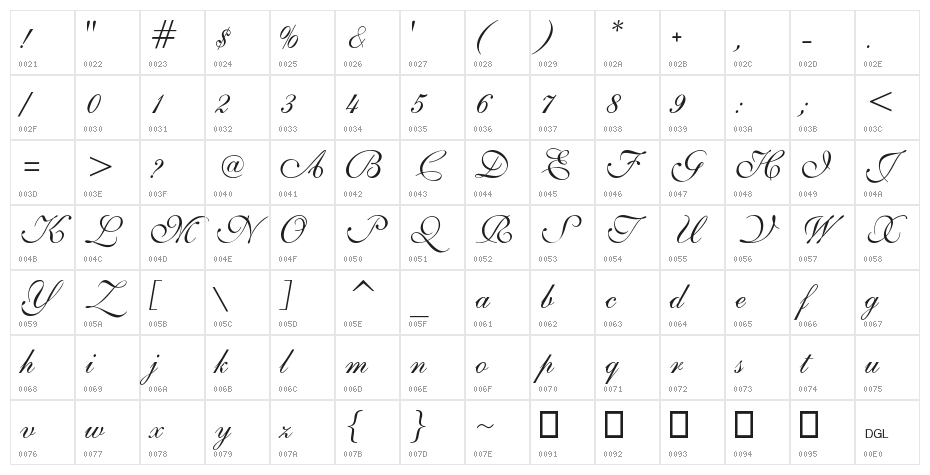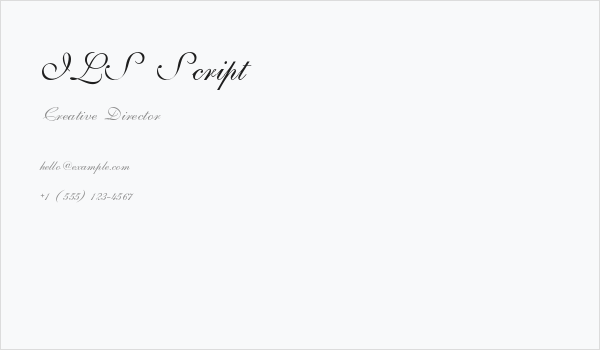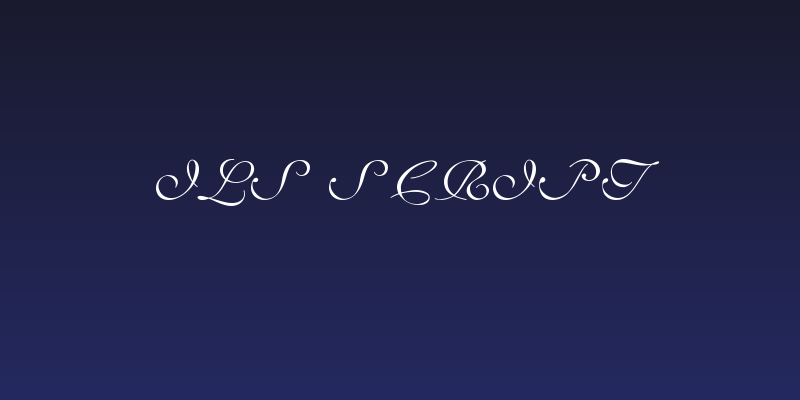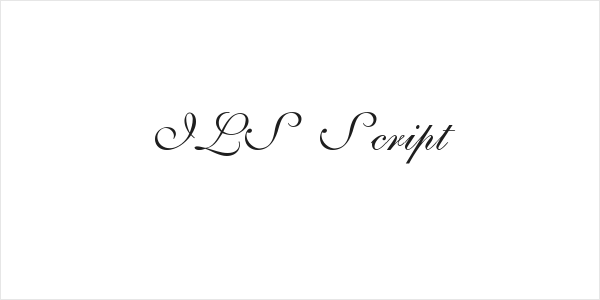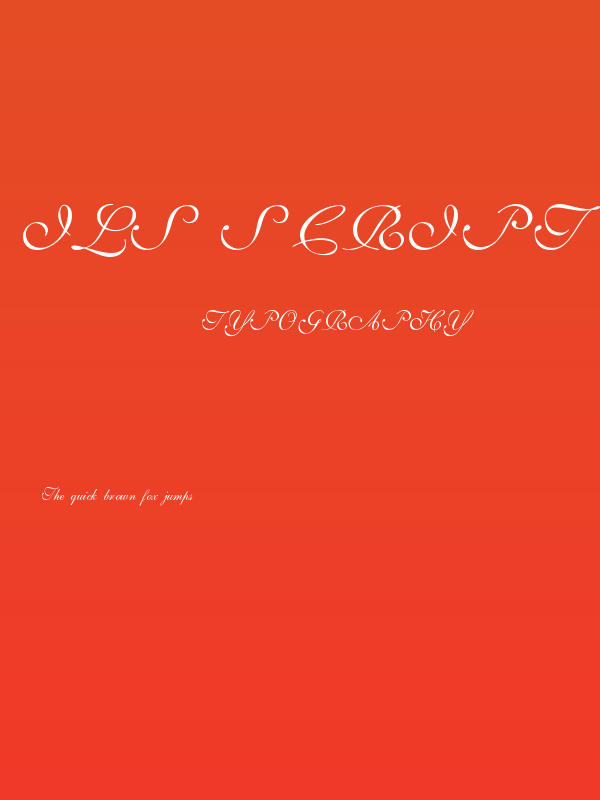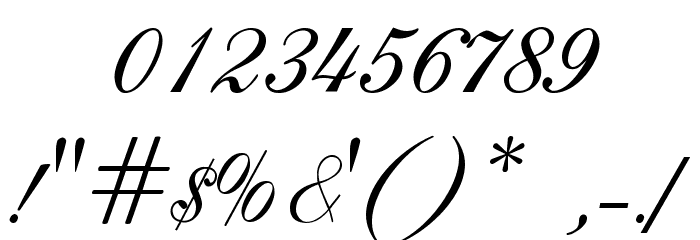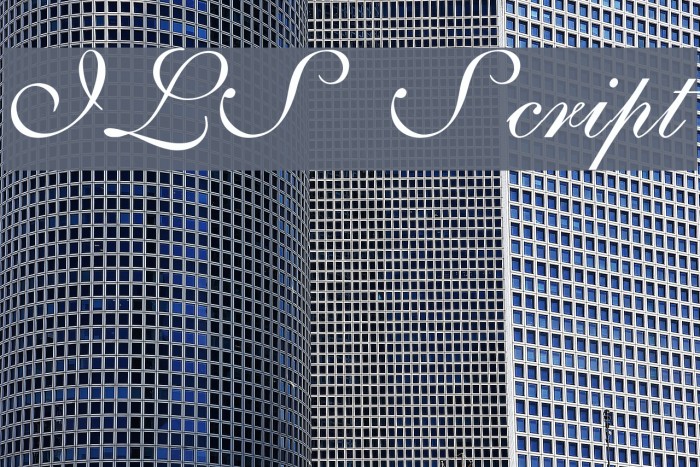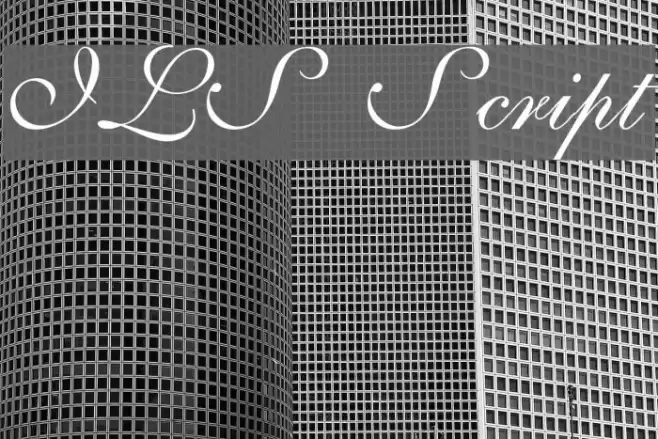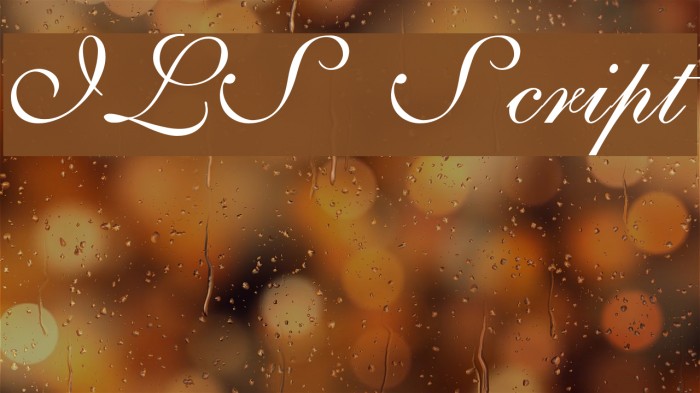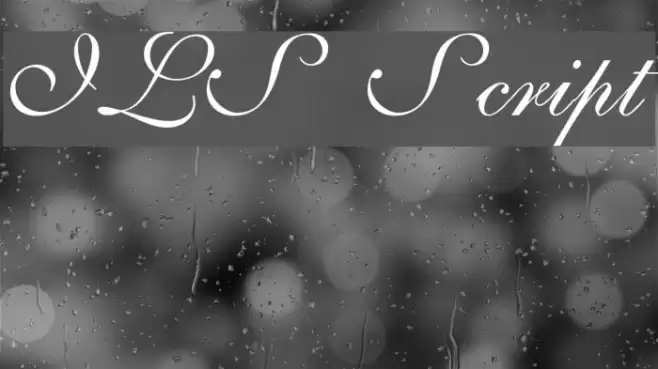
ILS Script Font
ILS Script Description
This elegant script font features a flowing, cursive style with intricate swashes and loops that give it a sophisticated and graceful appearance. The uppercase letters are adorned with elaborate flourishes, while the lowercase letters maintain a smooth and connected form, enhancing readability. The numerals are consistent with the overall script style, offering a cohesive look. Special characters are designed with the same attention to detail, making them suitable for decorative purposes. This font exudes a sense of classic elegance, perfect for formal invitations, branding, and other projects requiring a touch of refinement.
| Overall Style | Classic |
| Use Case | Headlines, Invitations, Branding |
| Proposed Projects | Ideal for wedding invitations, luxury branding, elegant stationery, and decorative headings. |